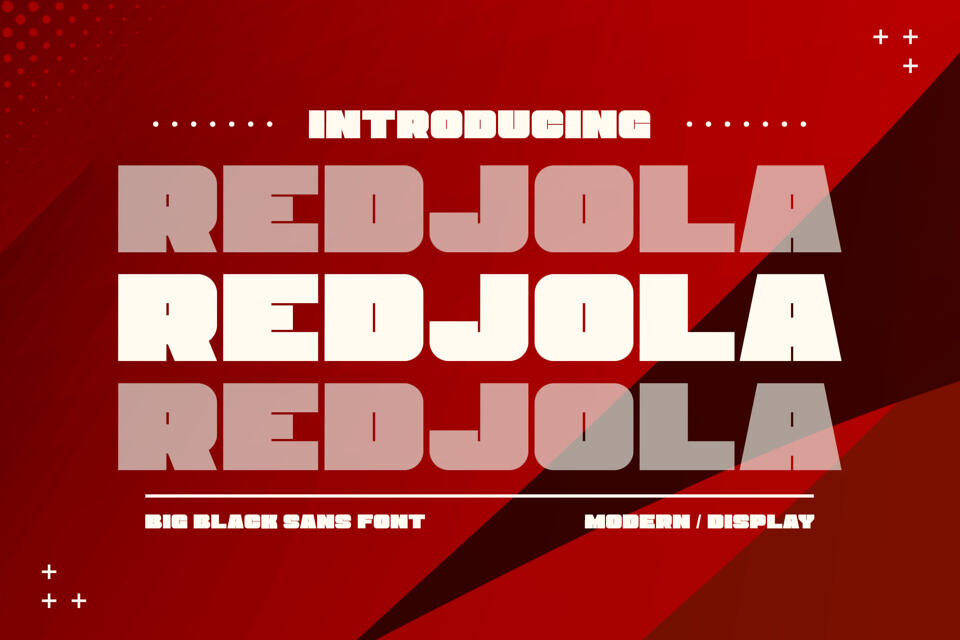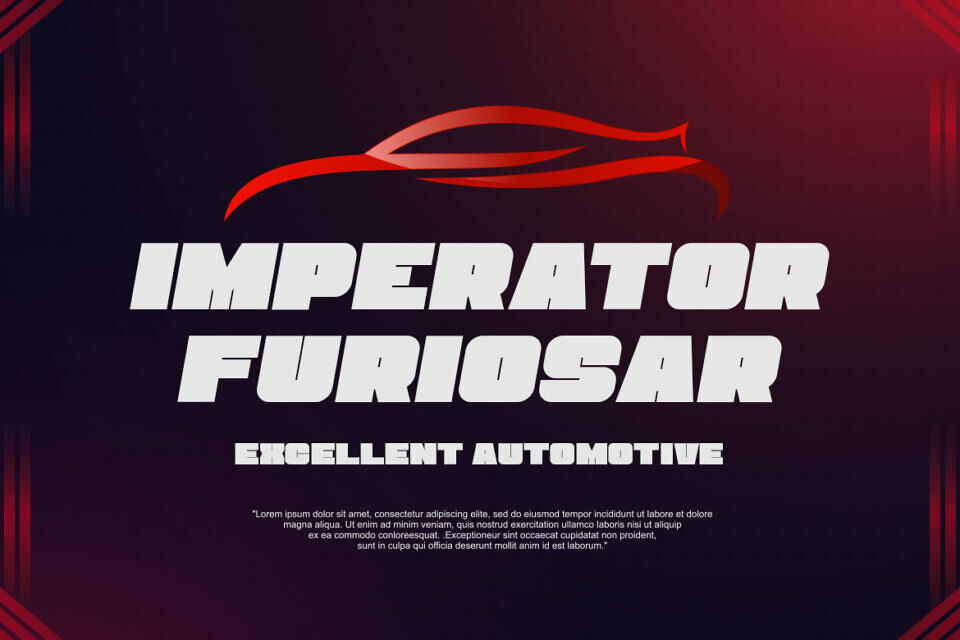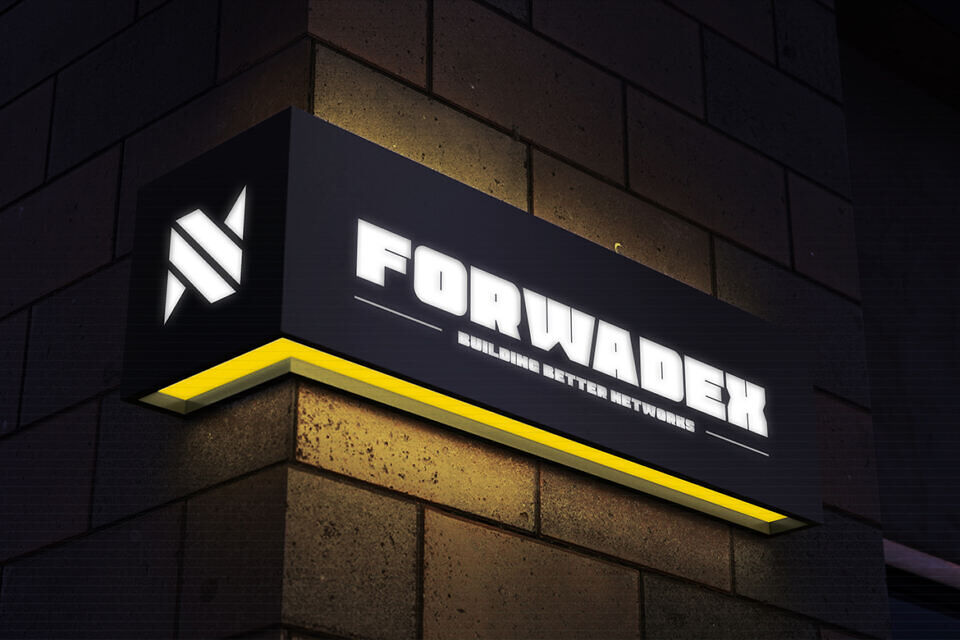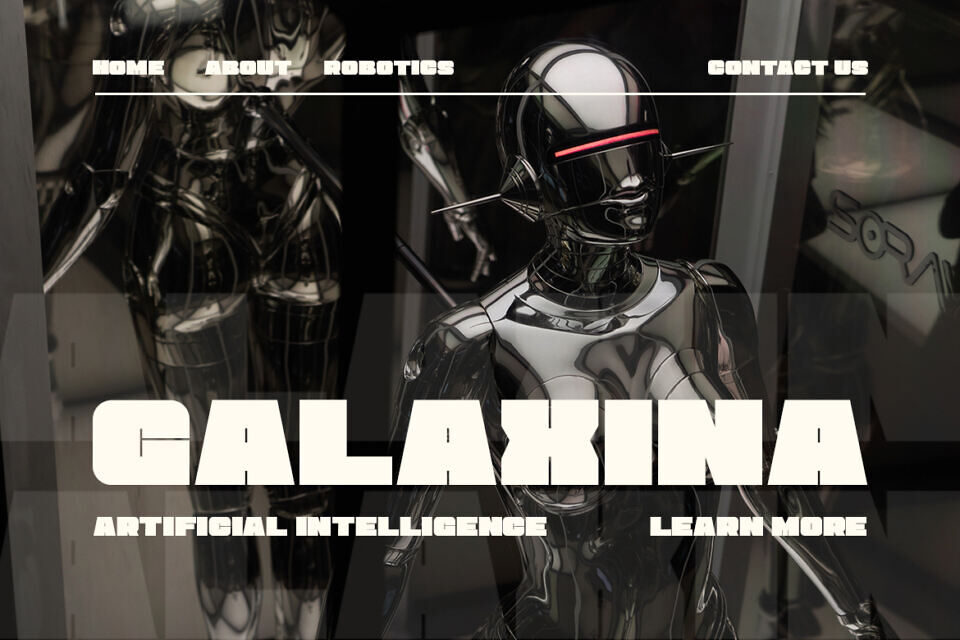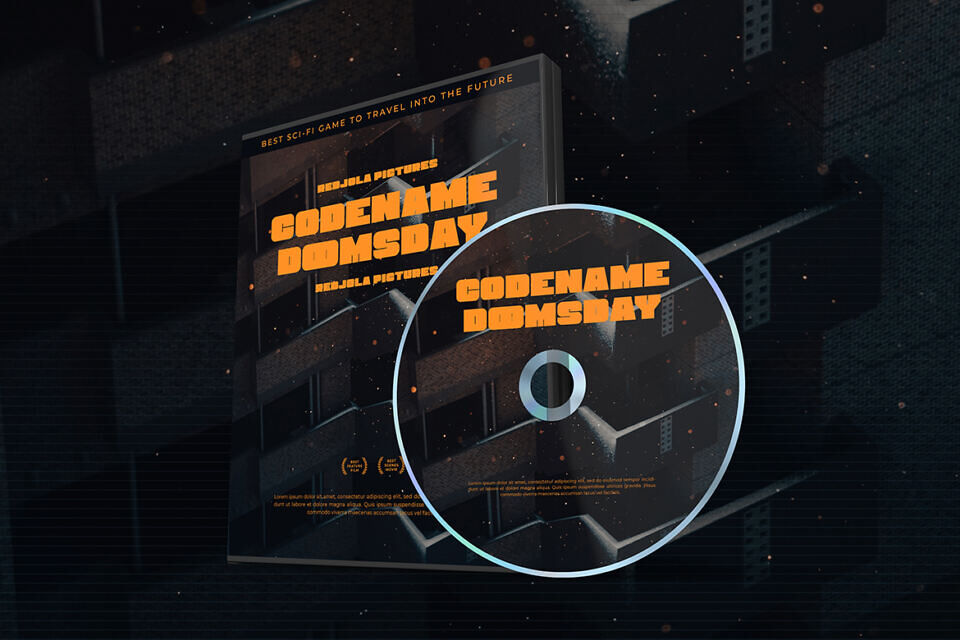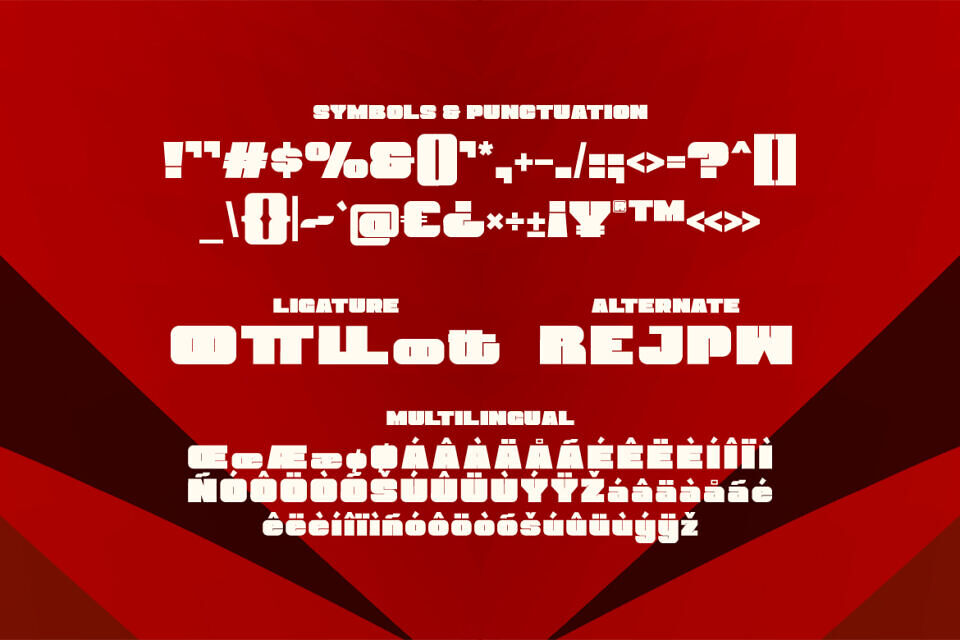
Redjola Font
Make a bold statement with “Redjola” – a big black sans font that commands attention and exudes confidence!
With its strong and powerful letterforms, “Redjola” leaves a lasting impression in any design project. Each character is meticulously crafted to showcase a perfect balance of boldness and readability, making it ideal for impactful headlines, striking posters, modern branding, and more.
Embrace the versatility of “Redjola” as it effortlessly elevates your designs. Whether you’re working on urban graphics, edgy logos, minimalist layouts, or attention-grabbing packaging, this font will captivate your audience with its big and impactful style.